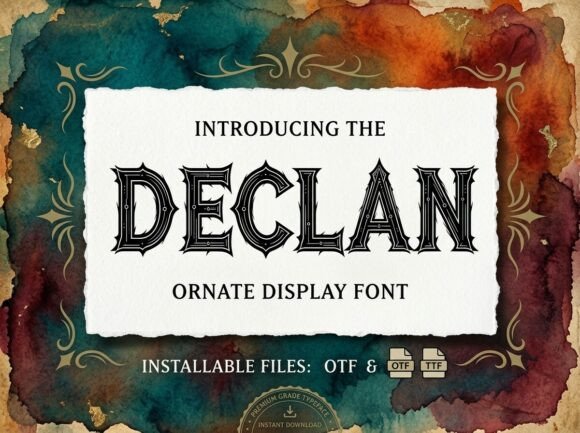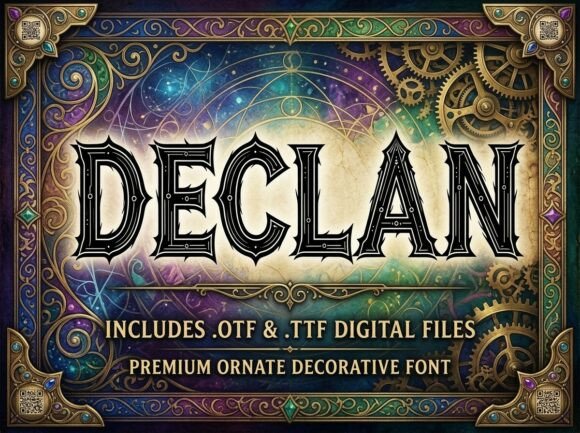
Introducing Declan Font: A Stunning Decorative Display Font
Are you tired of using the same old fonts for your designs? Look no further than Declan Font, a unique and artistic display font that’s sure to turn heads. With its strong visual personality and decorative elements, this font is perfect for creators who want to add a touch of elegance and sophistication to their work.
Declan Font is a stunning decorative display font designed to be the center of attention. Its unique artistic elements and strong visual personality make it perfect for bold headlines, artistic logos, and creative packaging. Whether you’re a designer, craftsperson, or DIY enthusiast, this font is sure to elevate your work to the next level.
Declan Font is perfect for designers and crafters who want to add a touch of elegance and sophistication to their work. With its unique artistic elements and strong visual personality, this font is sure to make your designs stand out from the crowd.
Use Cases
So, how can you use Declan Font in your designs? Here are a few ideas to get you started:
- Bold Headlines: Use Declan Font to create bold, eye-catching headlines that demand attention.
- Artistic Logos: Create unique and memorable logos that showcase your brand’s personality.
- Creative Packaging: Add a touch of elegance and sophistication to your packaging designs with Declan Font.
- Decorative Initials: Use Declan Font to create beautiful decorative initials that add a touch of personality to your designs.
Why Choose Declan Font?
So, why choose Declan Font over other display fonts on the market? Here are just a few reasons:
- Unique Artistic Elements: Declan Font features unique artistic elements that set it apart from other display fonts.
- Strong Visual Personality: This font has a strong visual personality that demands attention and makes your designs stand out.
- Versatile: Declan Font is versatile enough for use in a variety of design applications, from bold headlines to artistic logos and creative packaging.
- Professional and Polished Finish: This font maintains a professional and polished finish, ensuring that your designs look great every time.